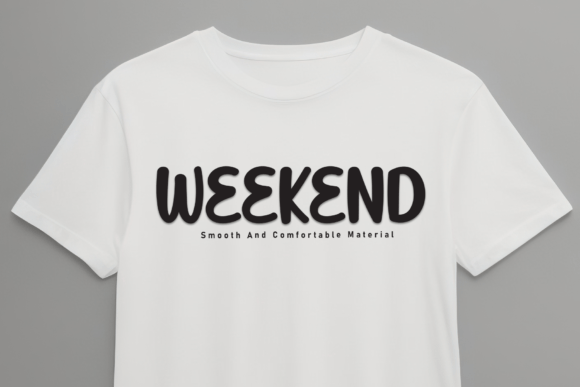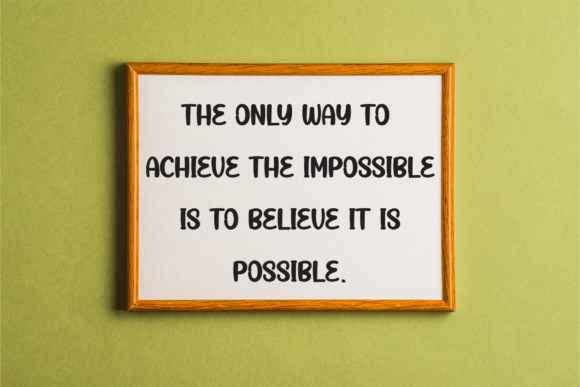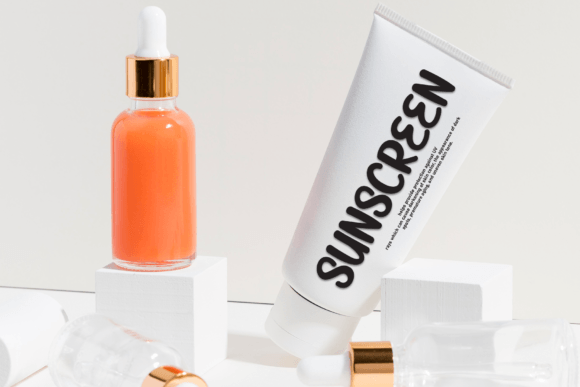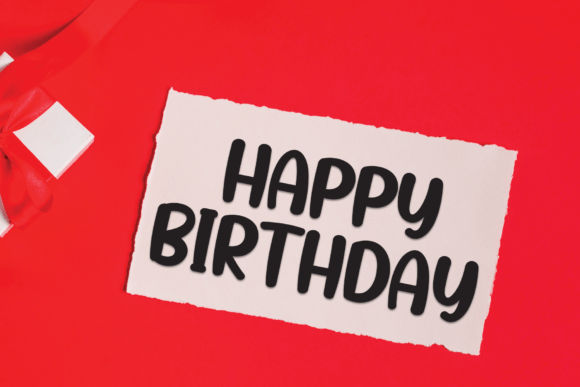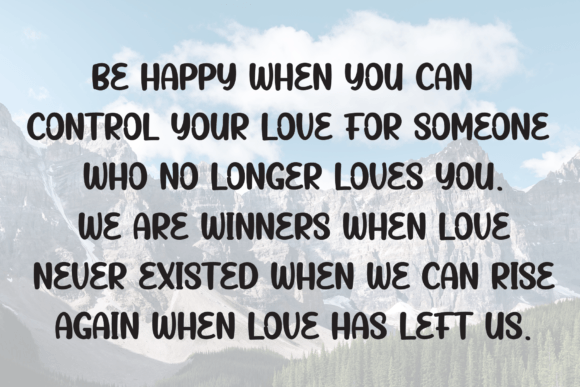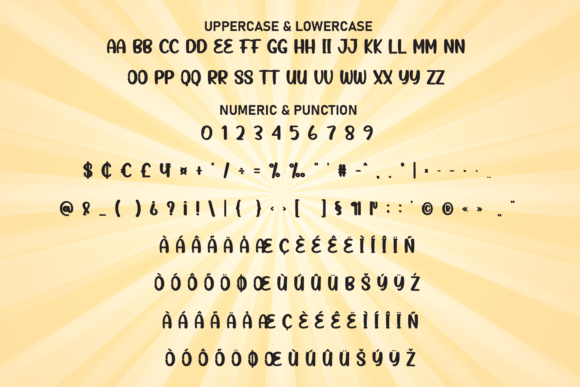
Introducing Cartoon Font: The Ultimate Casual Handwritten Font for Your Creative Projects
Are you looking for a font that can add a personal touch to your designs, social media posts, and invitations? Look no further than Cartoon Font, a casual handwritten font that captures the essence of a relaxed and friendly vibe. With its natural, flowing strokes, Cartoon Font is the perfect choice for designers and crafters who want to bring an effortless, charming touch to their work.
The Characteristics of Cartoon Font
Cartoon Font is a unique and versatile font that boasts a range of characteristics that make it ideal for various creative projects. Some of its key features include:
- Natural and flowing strokes: Cartoon Font’s strokes are smooth and fluid, giving it a natural and organic feel that’s perfect for creating a relaxed and friendly atmosphere.
- Casual and handwritten: This font has a distinctly handwritten feel that’s perfect for adding a personal touch to your designs.
- Effortless and charming: Cartoon Font’s easygoing style makes it perfect for creating designs that are charming and engaging.
- Warm and authentic: The font’s warm and authentic feel makes it ideal for creating designs that are inviting and genuine.
Uses for Cartoon Font
Cartoon Font is a versatile font that can be used for a wide range of creative projects, including:
- Personal projects: Whether you’re creating a personal blog, a scrapbook, or a photo album, Cartoon Font is the perfect choice for adding a personal touch.
- Social media: Use Cartoon Font to create engaging social media posts that stand out from the crowd.
- Invitations: Cartoon Font is perfect for creating invitations that are friendly, approachable, and fun.
- Branding and marketing: This font can also be used for branding and marketing projects, such as logos, brochures, and flyers.
Why Choose Cartoon Font?
So why should you choose Cartoon Font for your creative projects? Here are just a few reasons:
- Unique and distinctive: Cartoon Font has a unique and distinctive style that’s sure to set your designs apart from the crowd.
- Easy to read: Despite its casual and handwritten feel, Cartoon Font is easy to read and understand, making it perfect for body text and captions.
- Flexible and versatile: Cartoon Font can be used for a wide range of creative projects, from personal projects to commercial branding.
- High-quality design: Cartoon Font is designed to high standards, ensuring that it looks great in any design.
Tips for Using Cartoon Font
Here are a few tips for using Cartoon Font in your creative projects:
- Use it for headings and titles: Cartoon Font is perfect for headings and titles, where its unique and distinctive style can really shine.
- Pair it with other fonts: Cartoon Font can be paired with other fonts to create a unique and interesting design.
- Experiment with colors and textures: Don’t be afraid to experiment with different colors and textures to really make Cartoon Font stand out.
- Keep it simple: Despite its versatility, Cartoon Font is at its best when used simply and elegantly.
In conclusion, Cartoon Font is a unique and versatile font that’s perfect for designers and crafters who want to add a personal touch to their creative projects. With its natural, flowing strokes and casual, handwritten feel, Cartoon Font is ideal for creating designs that are relaxed, friendly, and engaging. Whether you’re working on a personal project, social media post, or commercial branding project, Cartoon Font is the perfect choice.